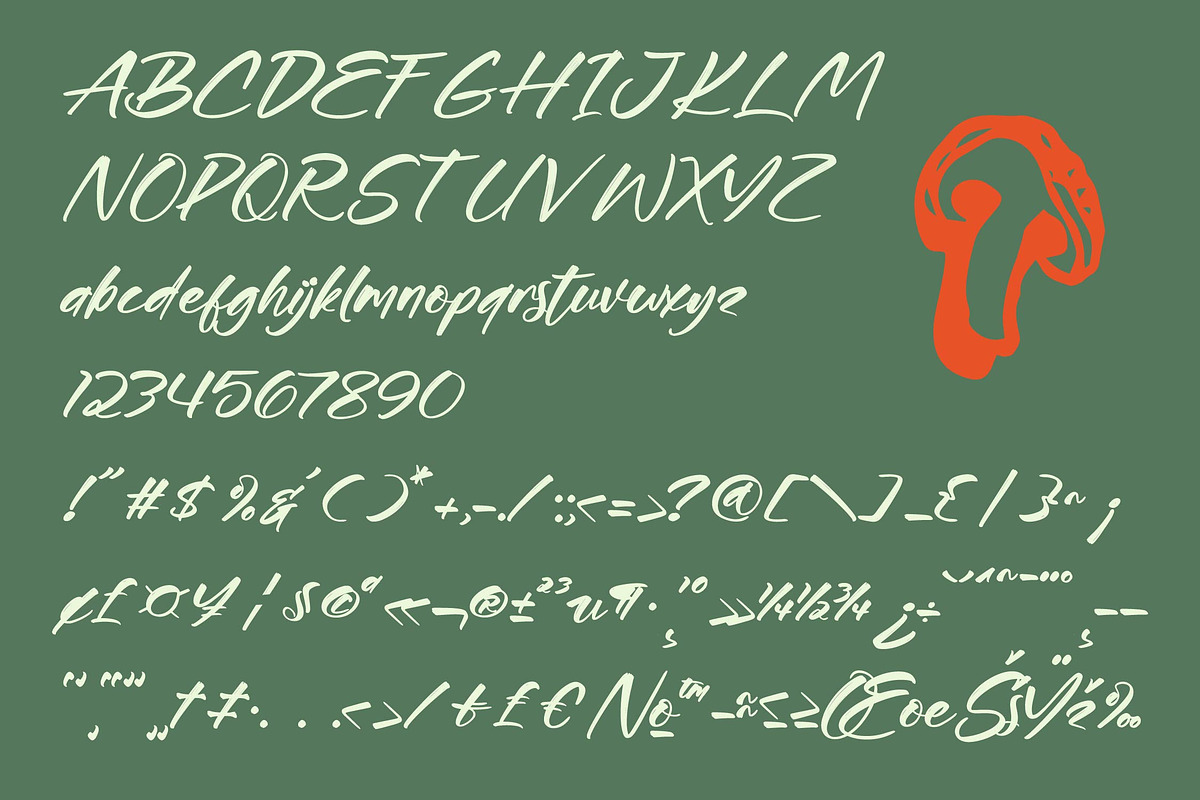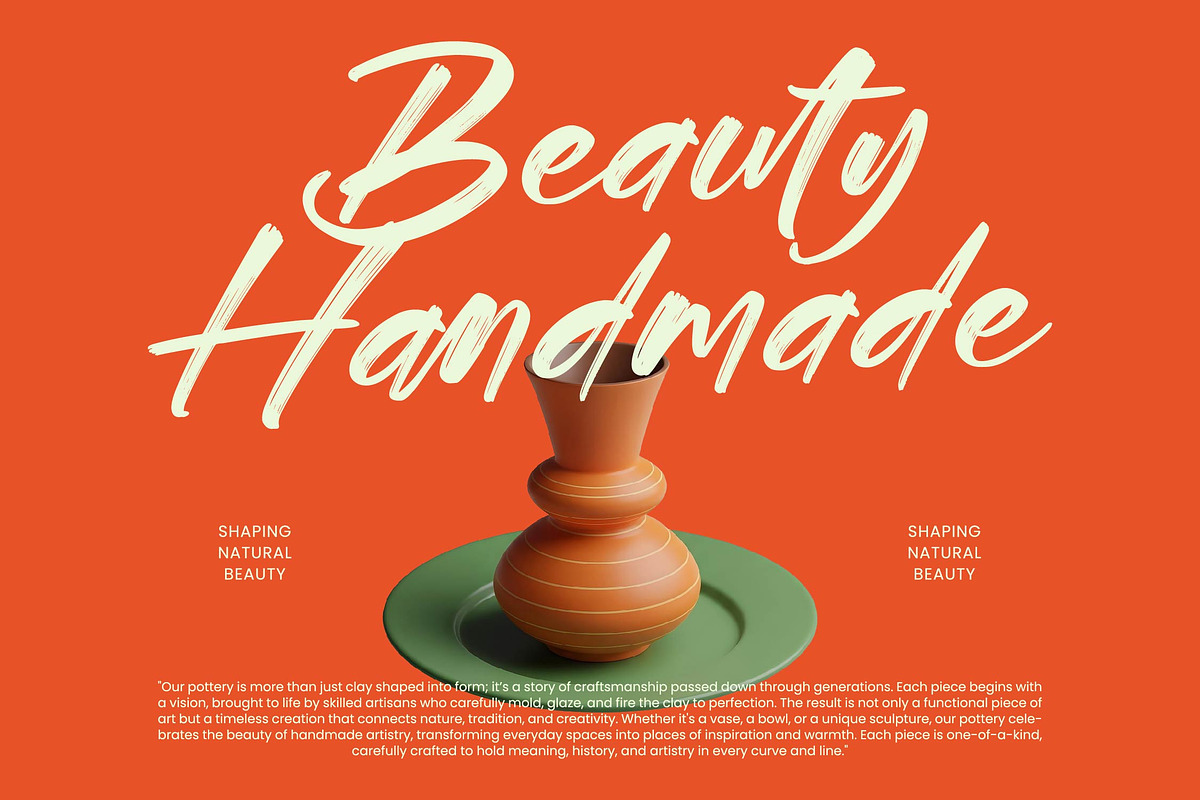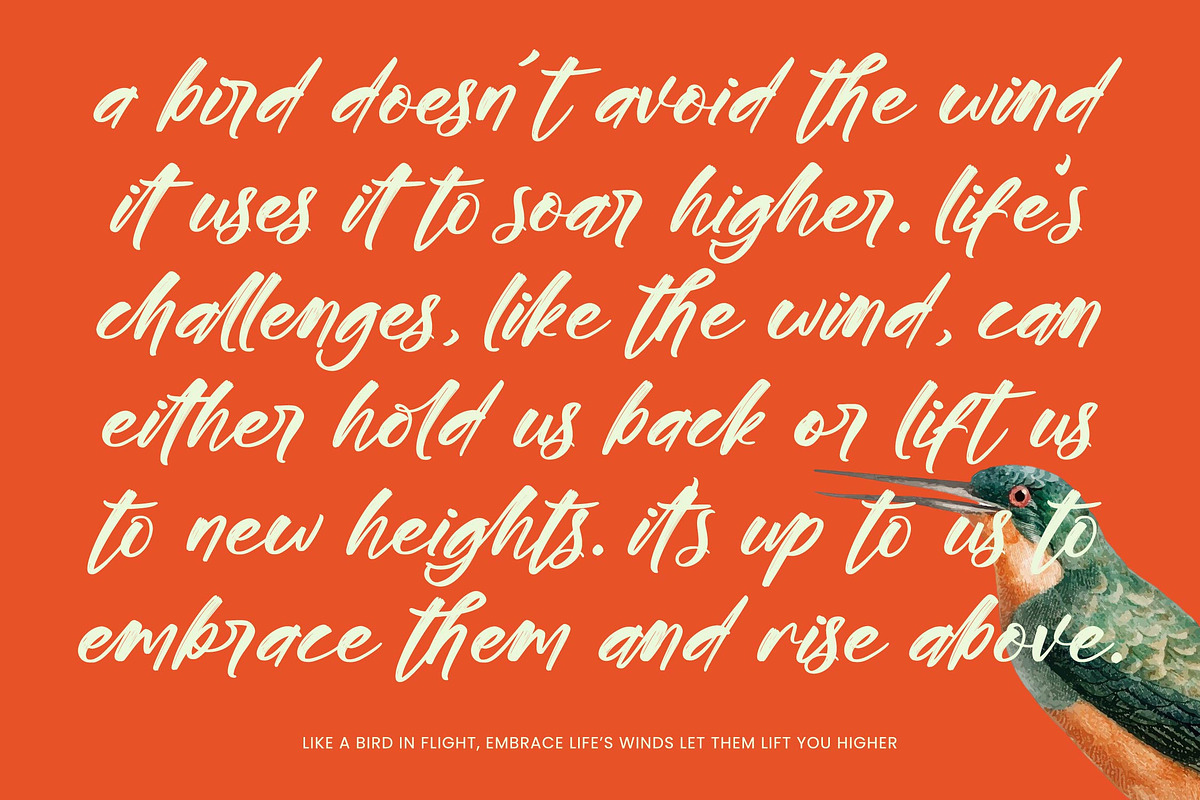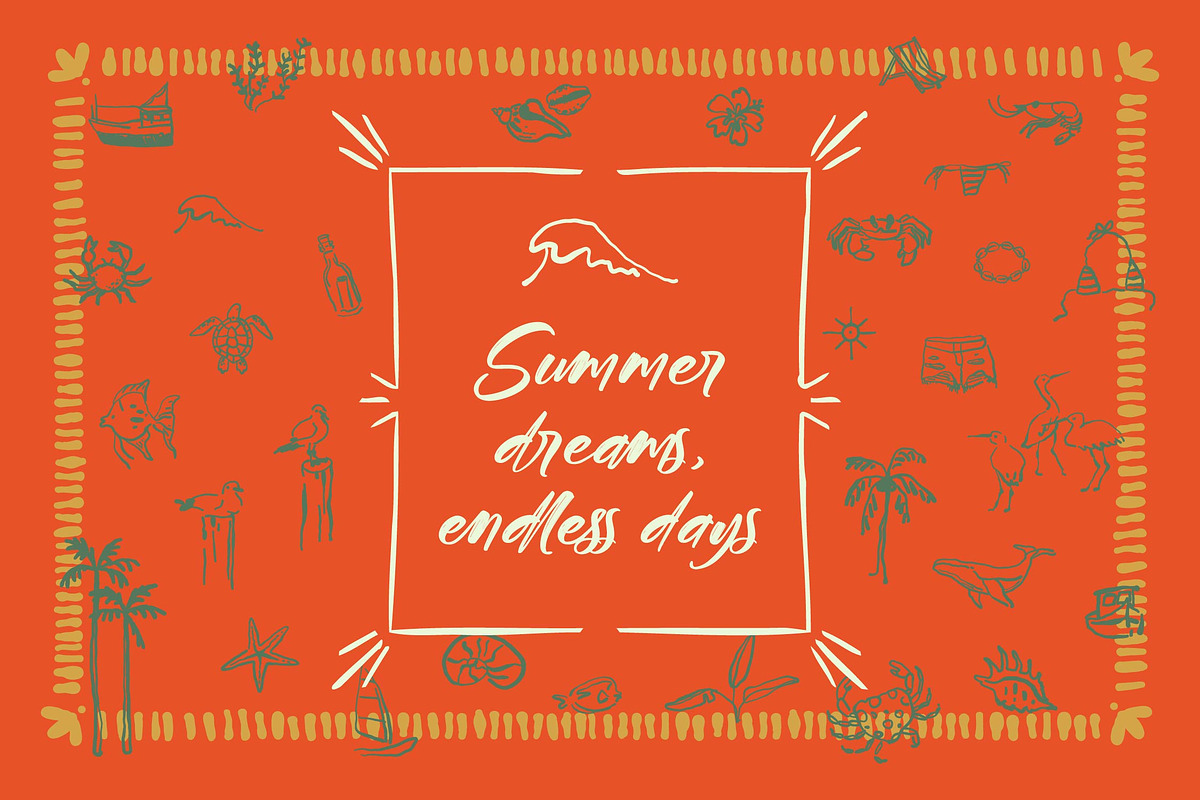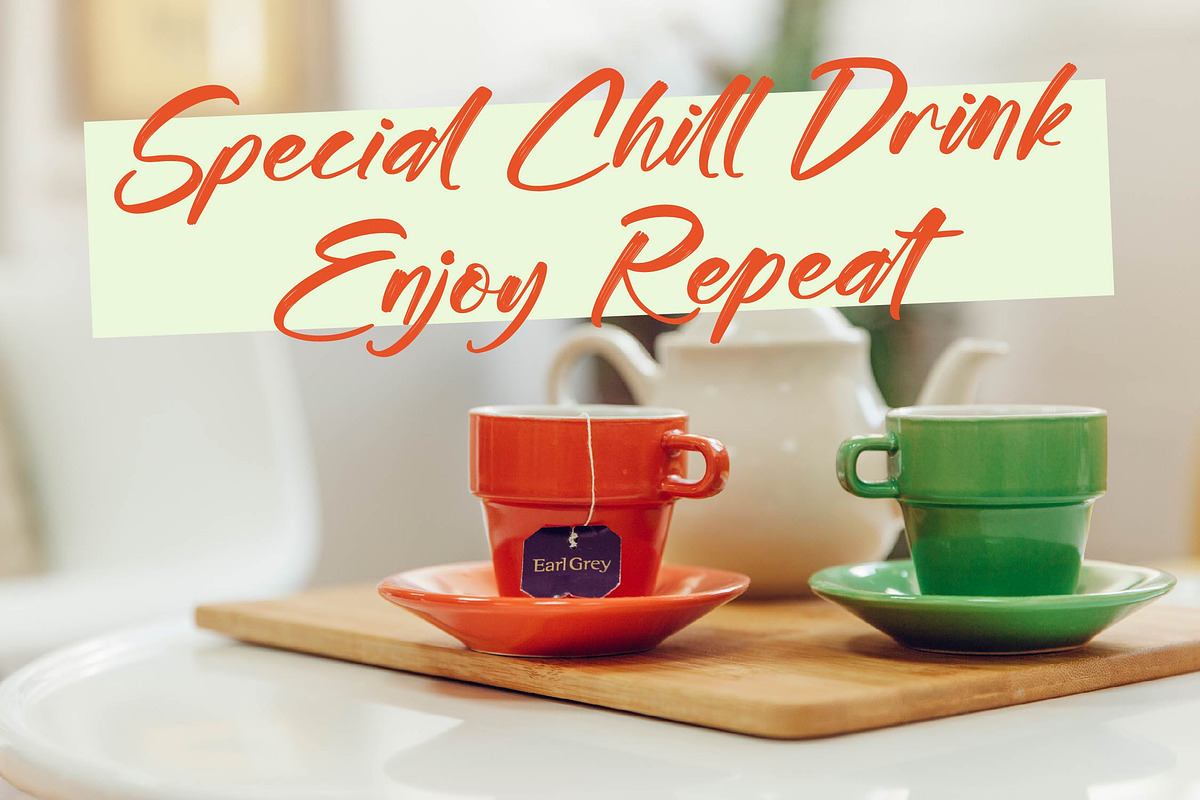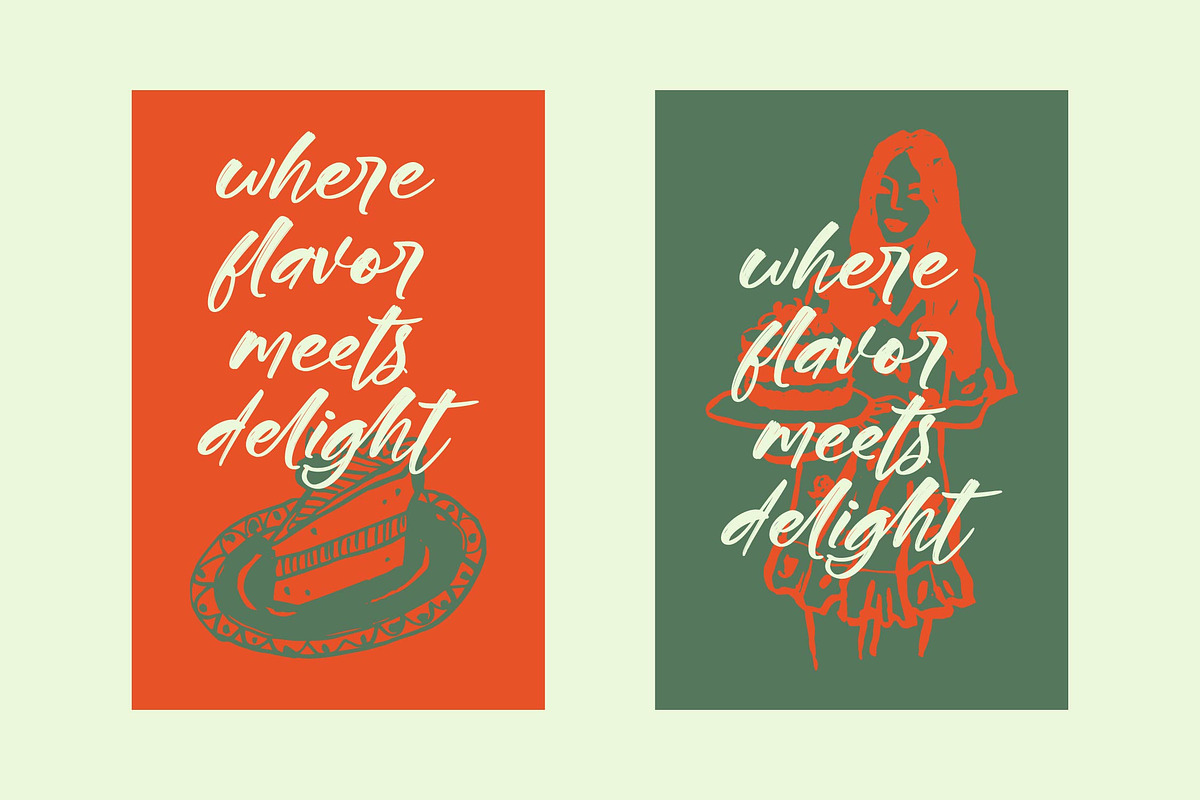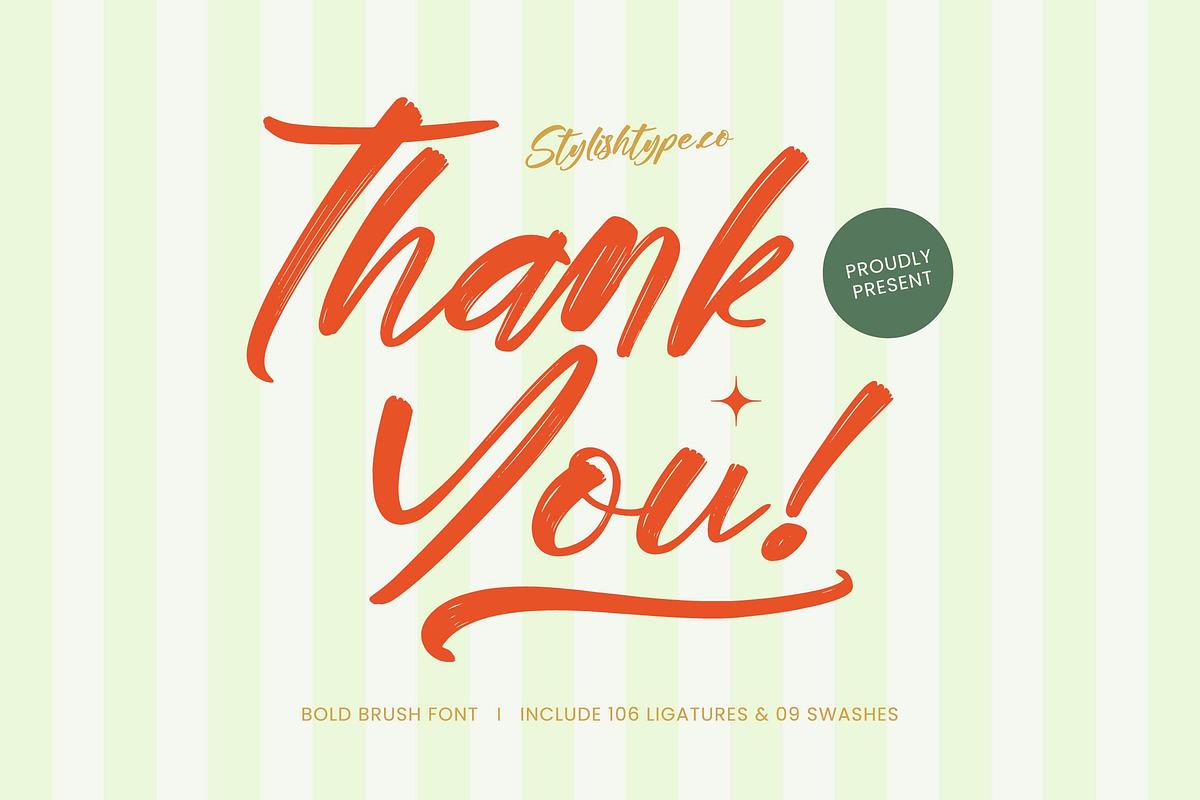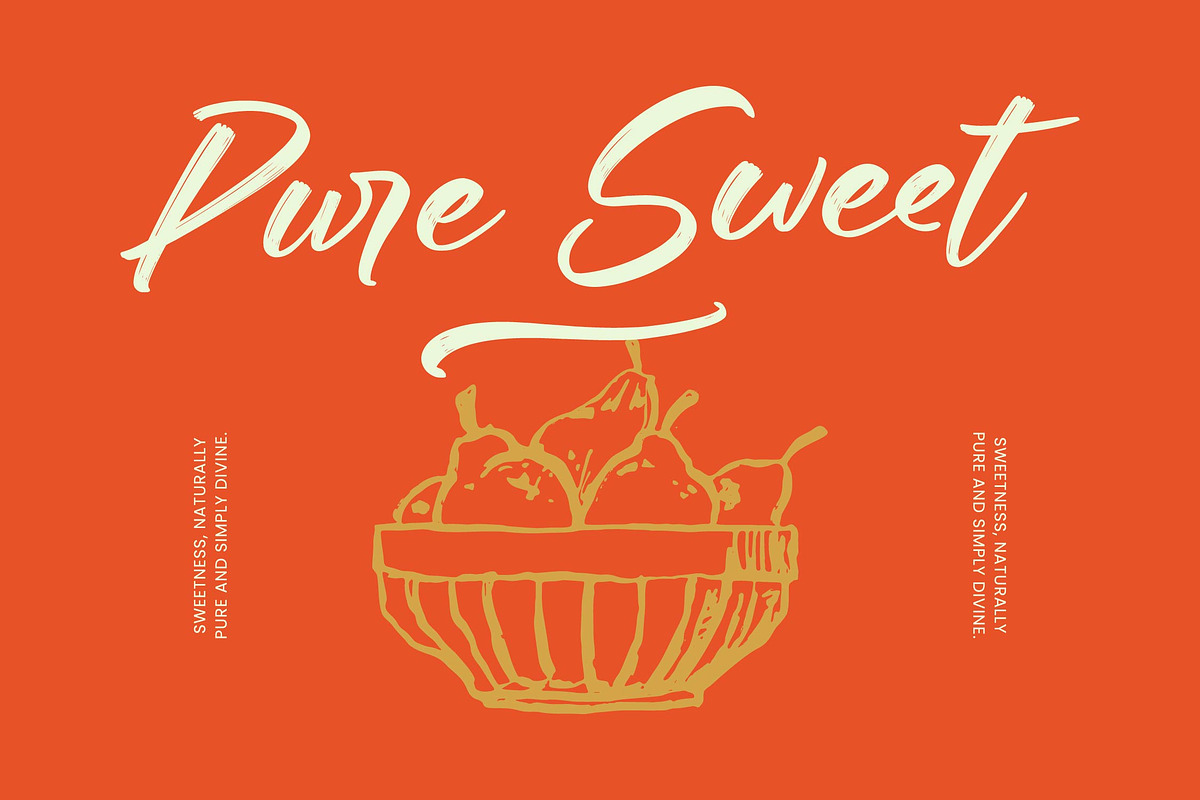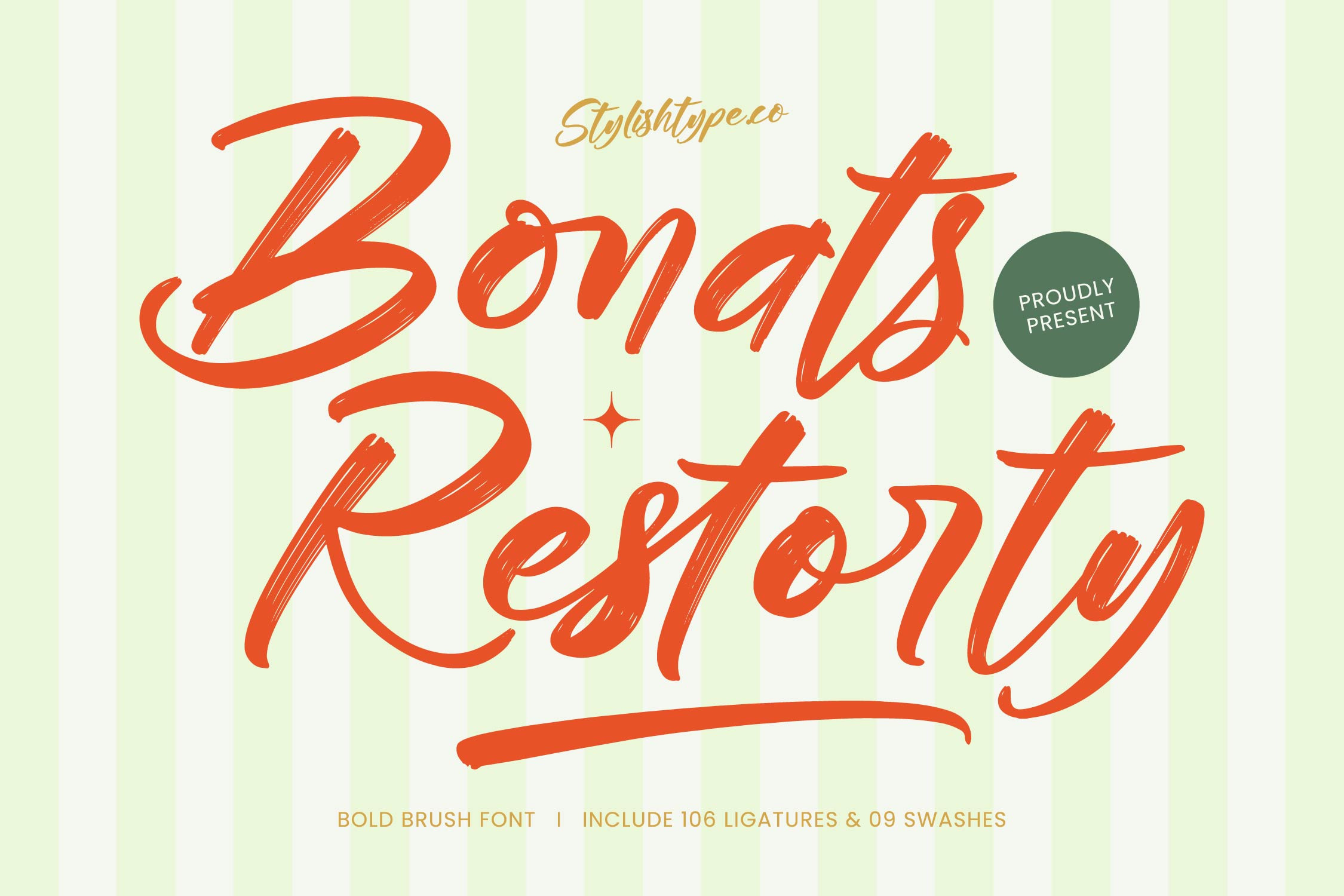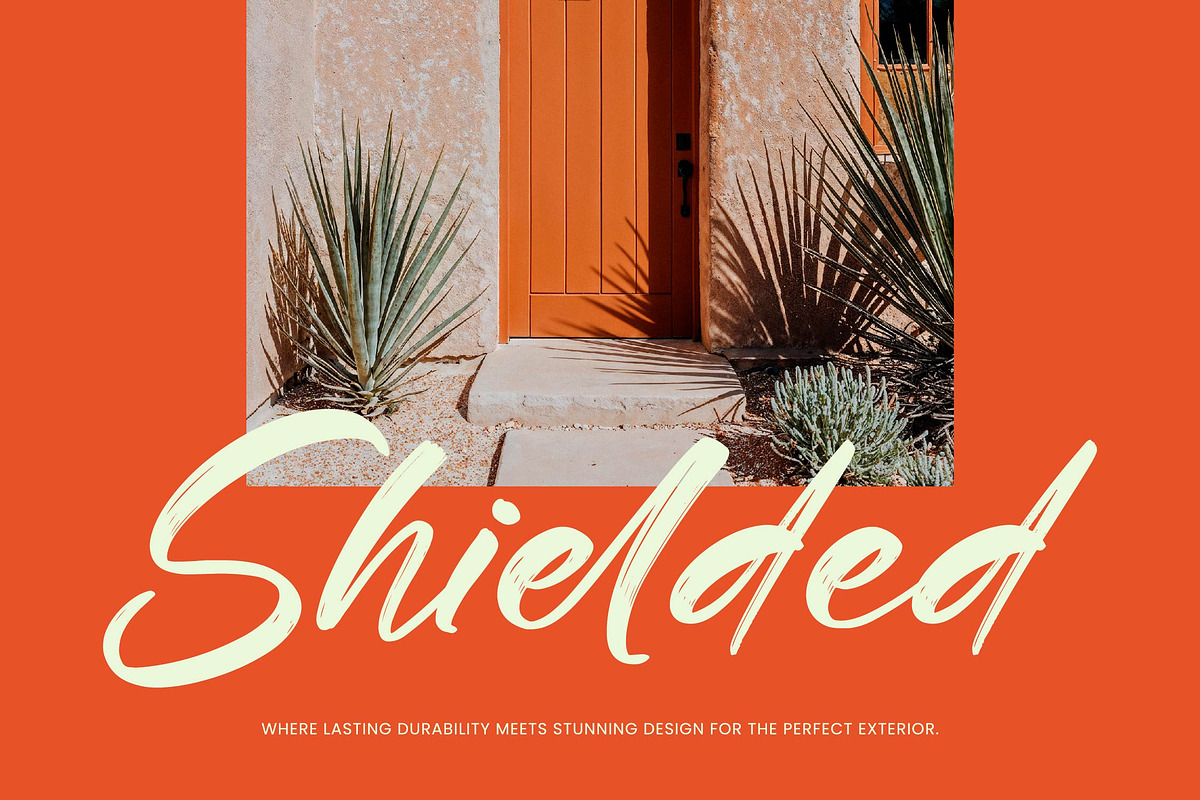
Bonats Restorty Bold Brush Font
Bonats Restorty - Bold Brush Font , Unleash raw creative energy with Bonats Restorty, a masterfully crafted brush typeface designed to bring an authentic, handcrafted soul to every project. This font captures the spontaneous motion of a painter's hand, offering a bold visual language that commands instant attention and resonates with modern audiences.
Inspired by the fluid dynamics of street art and the sophisticated strokes of contemporary calligraphy, the atmosphere of this font is both grounded and aspirational. It evokes a sense of high-end craftsmanship found in artisan studios and boutique creative agencies where every detail is intentional.
This collection delivers a modern serif display level of refinement while maintaining the raw, textured edge of a true luxury typography piece. It serves as a powerful high-contrast serif alternative for designers who require an organic editorial font capable of delivering a massive branding impact.
Reflecting the current modern serif trend toward more human-centric design, this typeface fits perfectly within the world of editorial display fonts. It provides the necessary depth for character-driven typography that feels approachable yet professional, breaking the monotony of standard geometric layouts.
The versatility of this font makes it a staple for high-impact logo design and comprehensive visual branding systems. It transitions seamlessly between digital editorial content, rustic packaging, romantic wedding stationery, and the fast-paced world of high fashion retail.
Technically robust, the font includes over 100 unique ligatures and 09 expressive swashes to ensure every word looks custom-tailored. With additional alternates, full multilingual support, and a comprehensive set of international characters, it is ready for global design challenges.